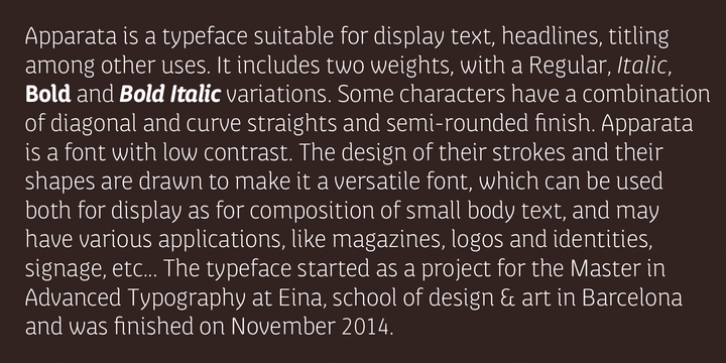
Apparata is a versatile display and text typeface suitable for identities or magazines. Started as a project for the Master in Advanced Typography in Eina, Barcelona 2008.
Currently includes 4 styles: Light, Light Italic, Bold and Bold Italic. With more than 700 glyphs in each font, smallcaps, tabular and old style figures, fractions, ligatures, punctuation and symbols.